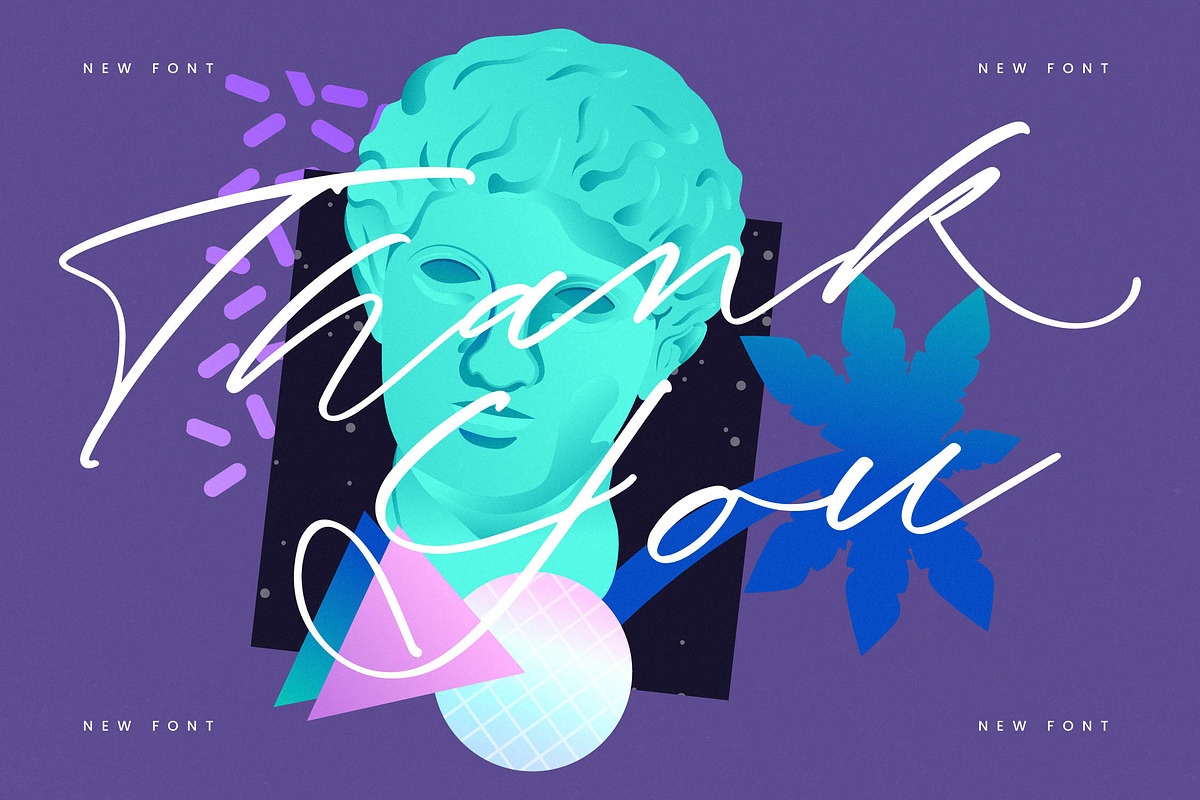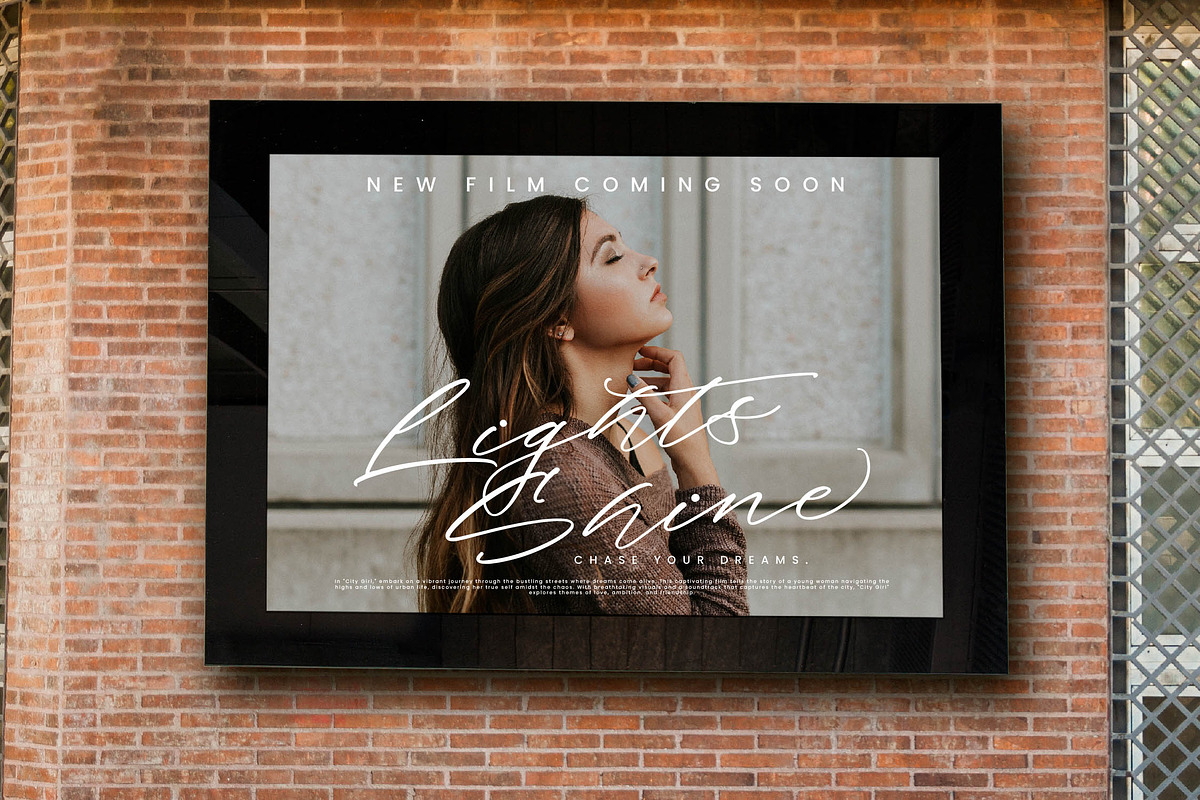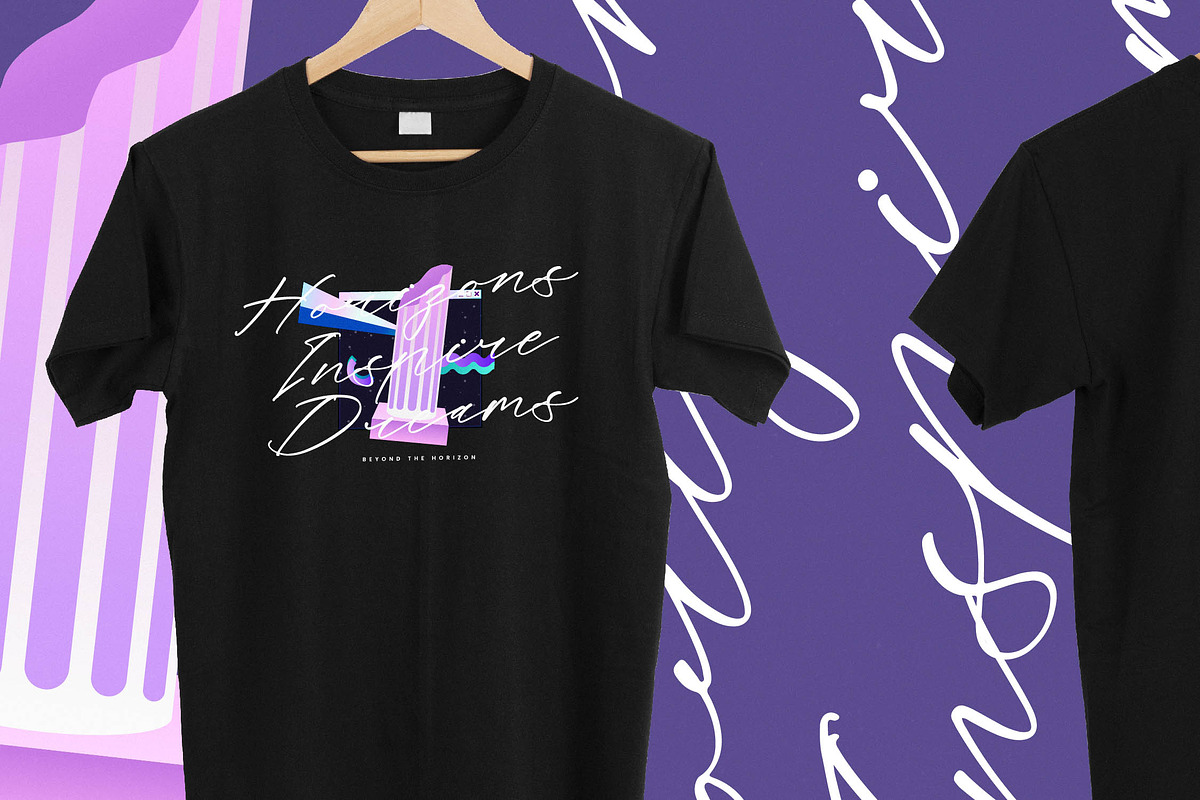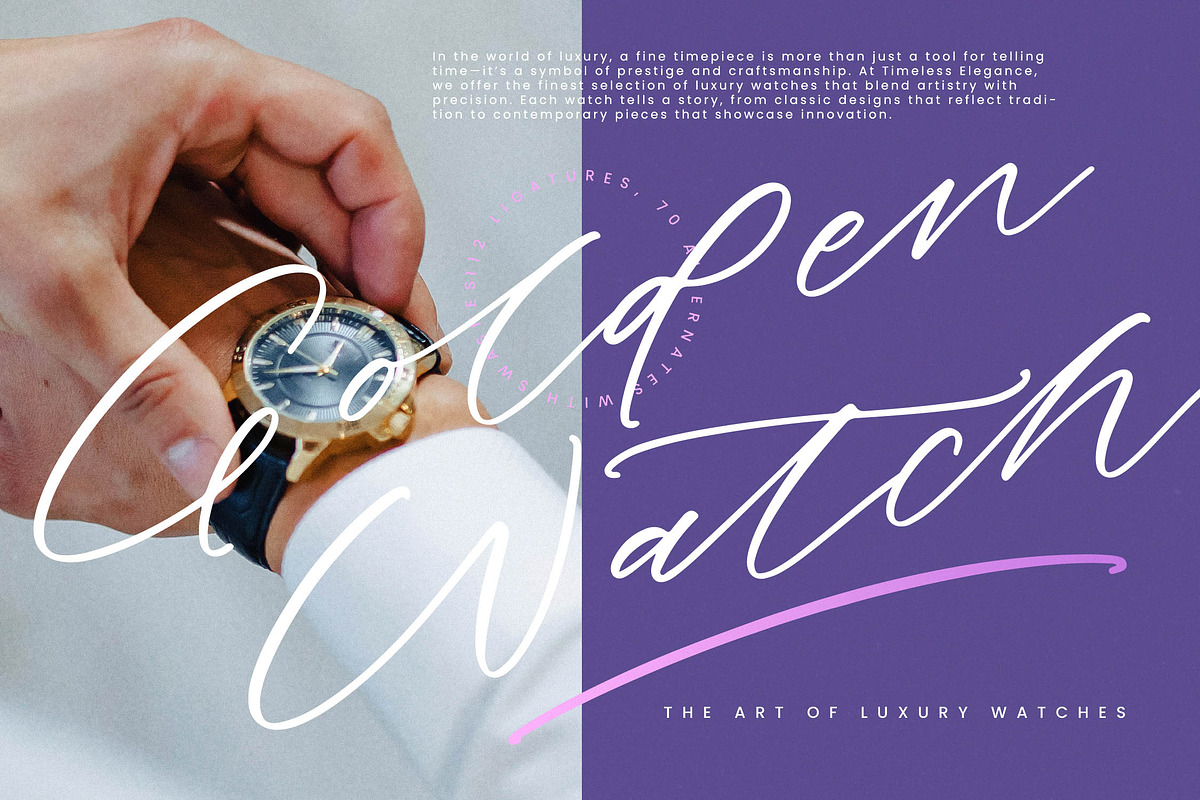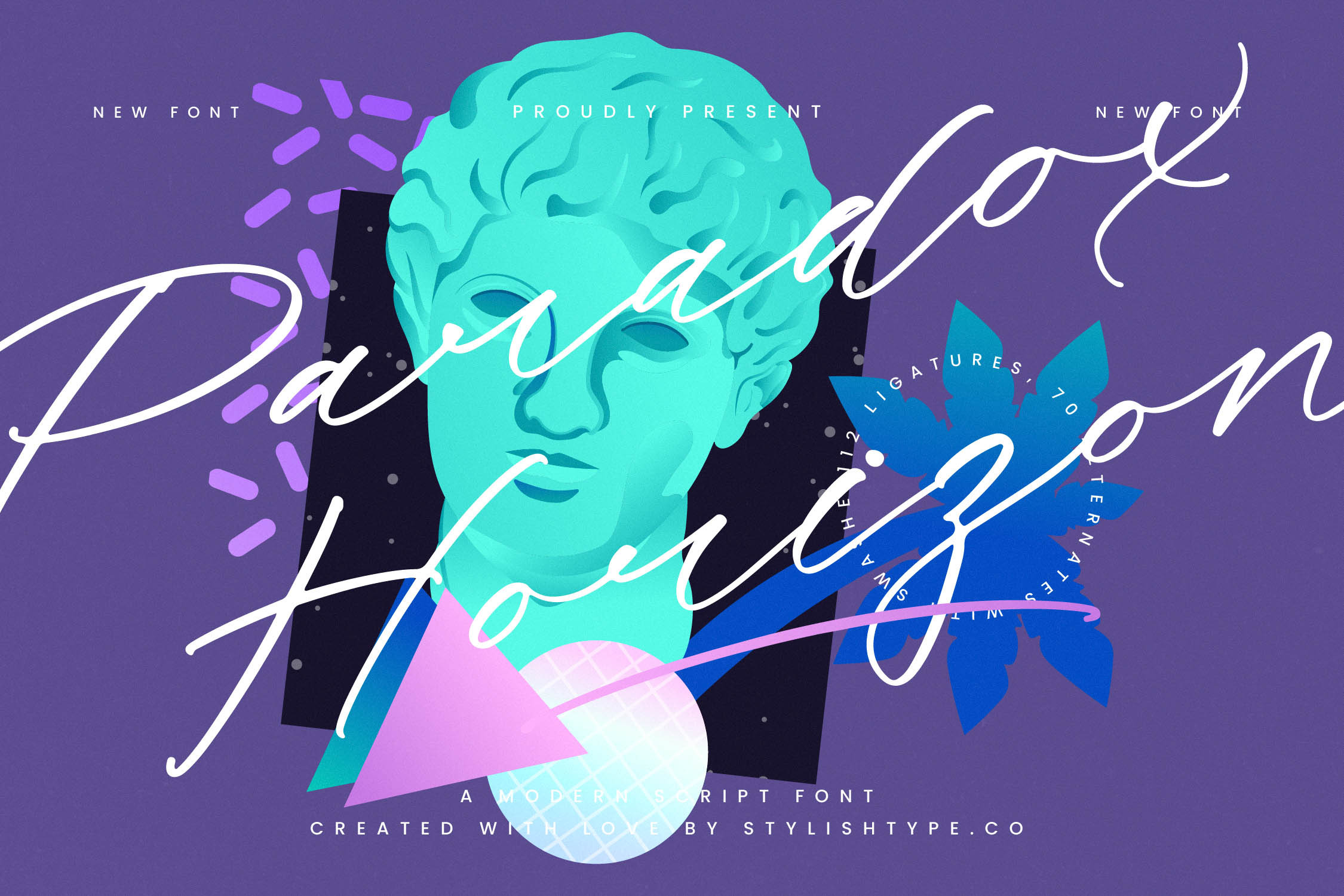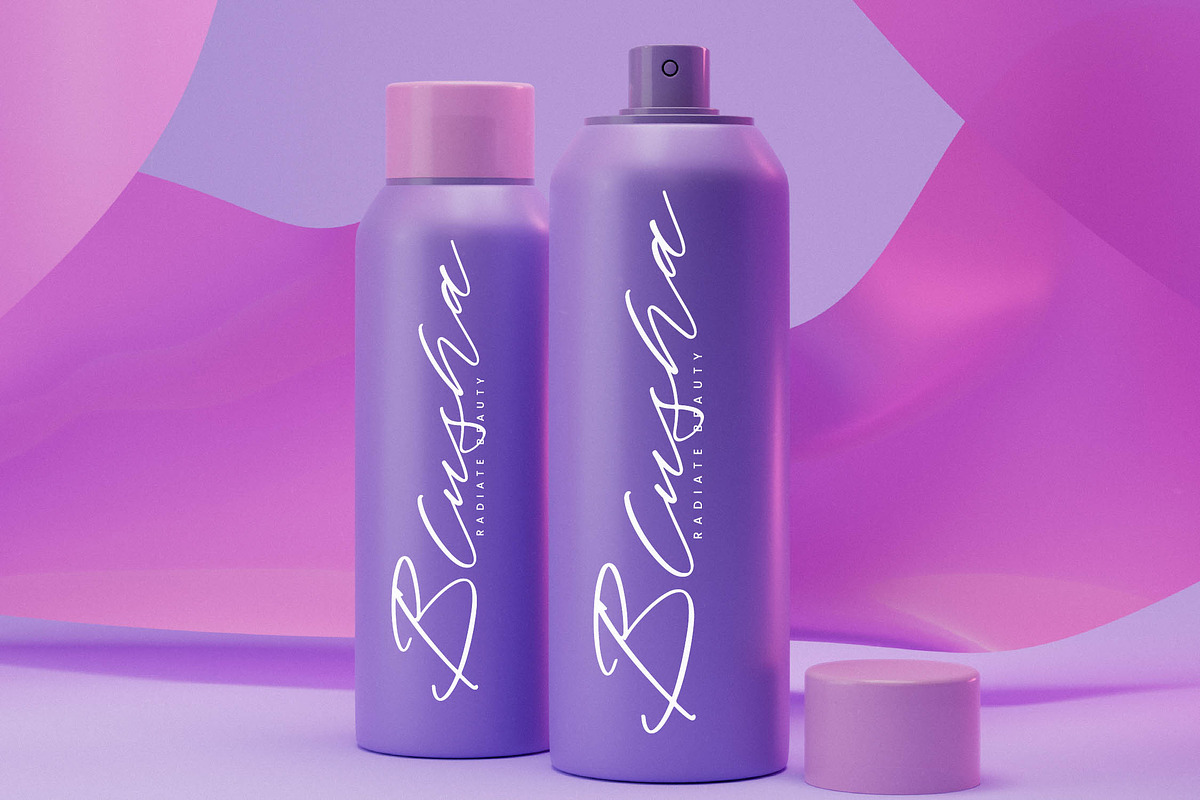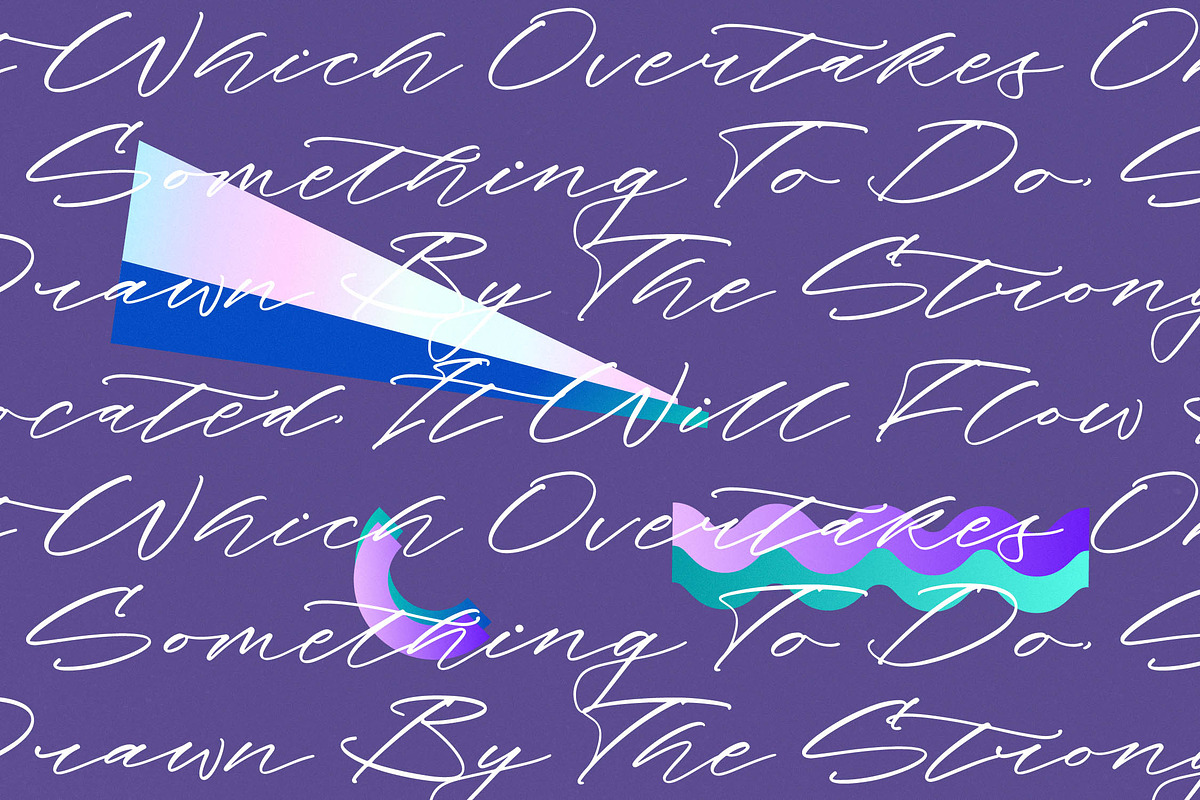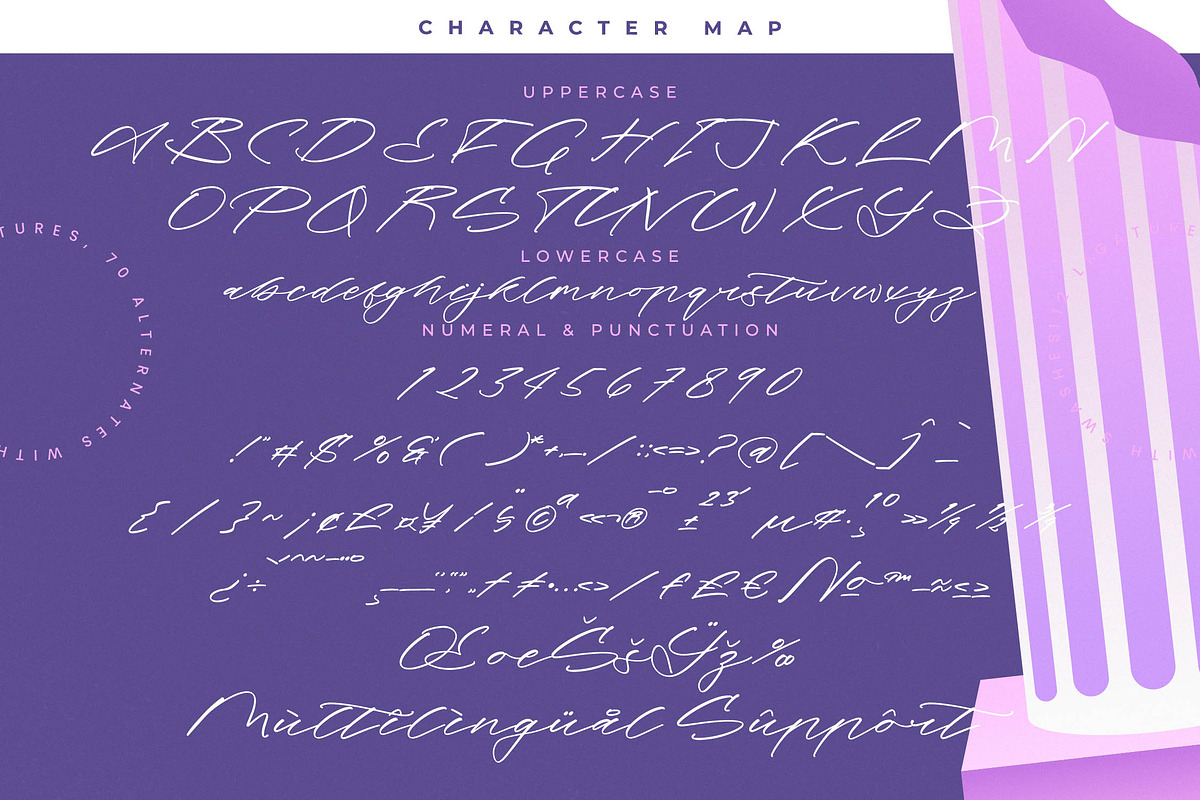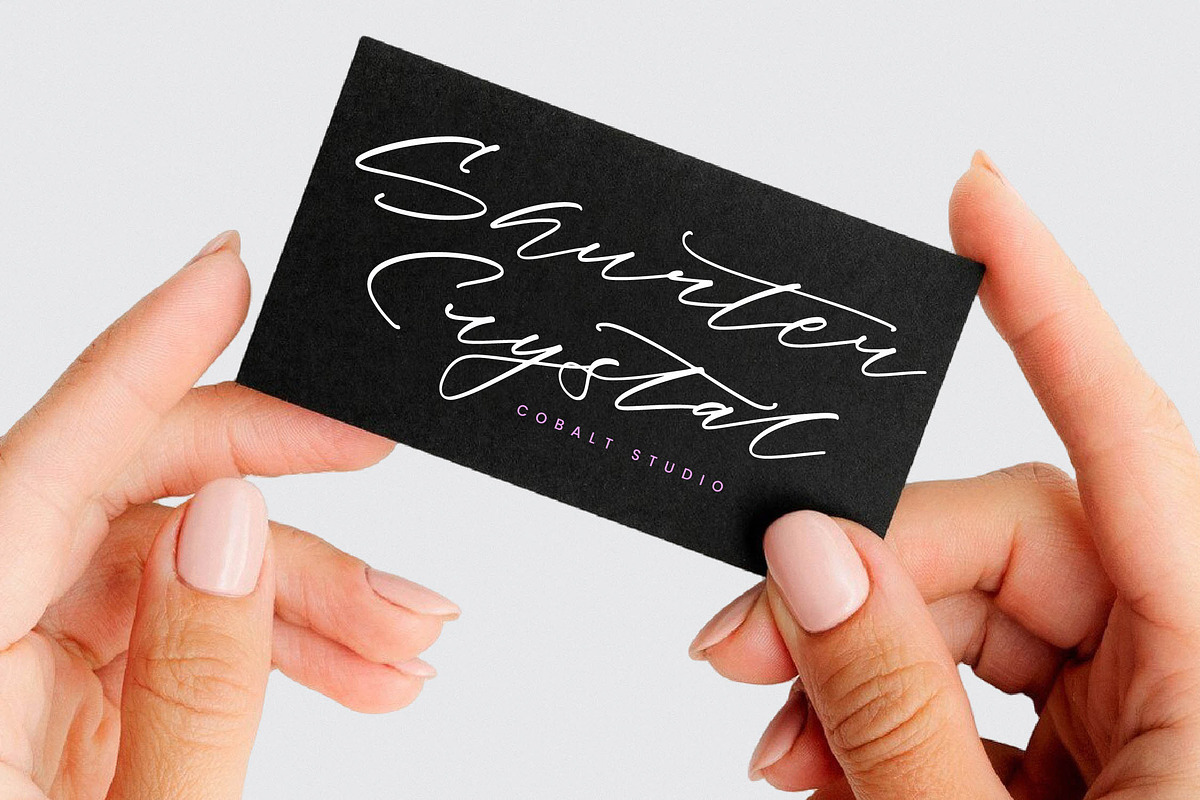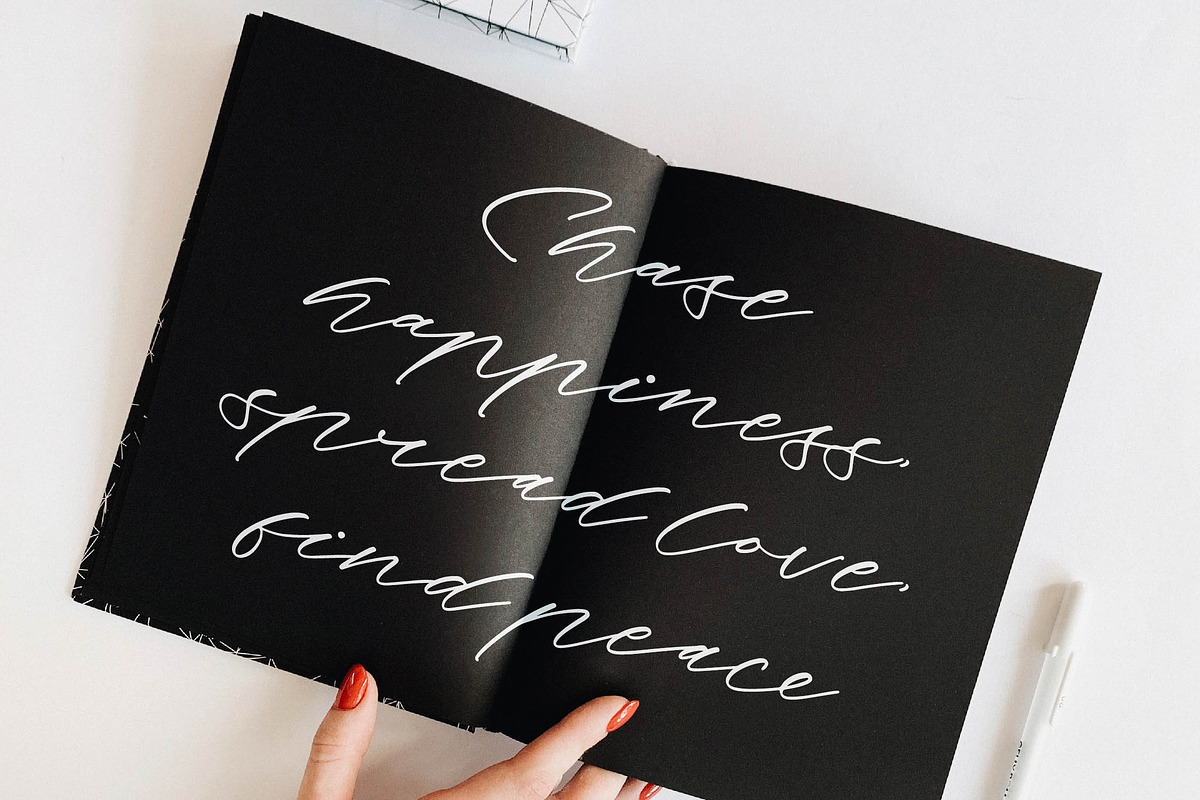
Paradox Horizon Modern Script Font
Paradox Horizon - Modern Script Font , from Stylishtype.Co , Suitable for any projects such as: logos, branding projects, homeware designs, product packaging, mugs, quotes, posters, shopping bags, t-shirts, book covers, name card, invitation cards, greeting cards, label, photography, watermark, special events, and all your other luxury and beautiful projects that need a Luxury Script taste.
- 70 Ligature 112 Alternates & 12 Swashes